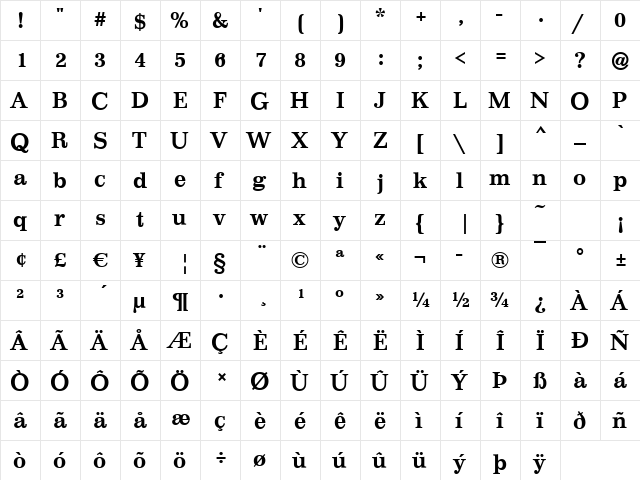
Illinois Medium Font Preview
Illinois Medium
Design Context for Illinois Typeface
Illinois is a composed and adaptable typeface that performs quietly and consistently across a wide range of design contexts.